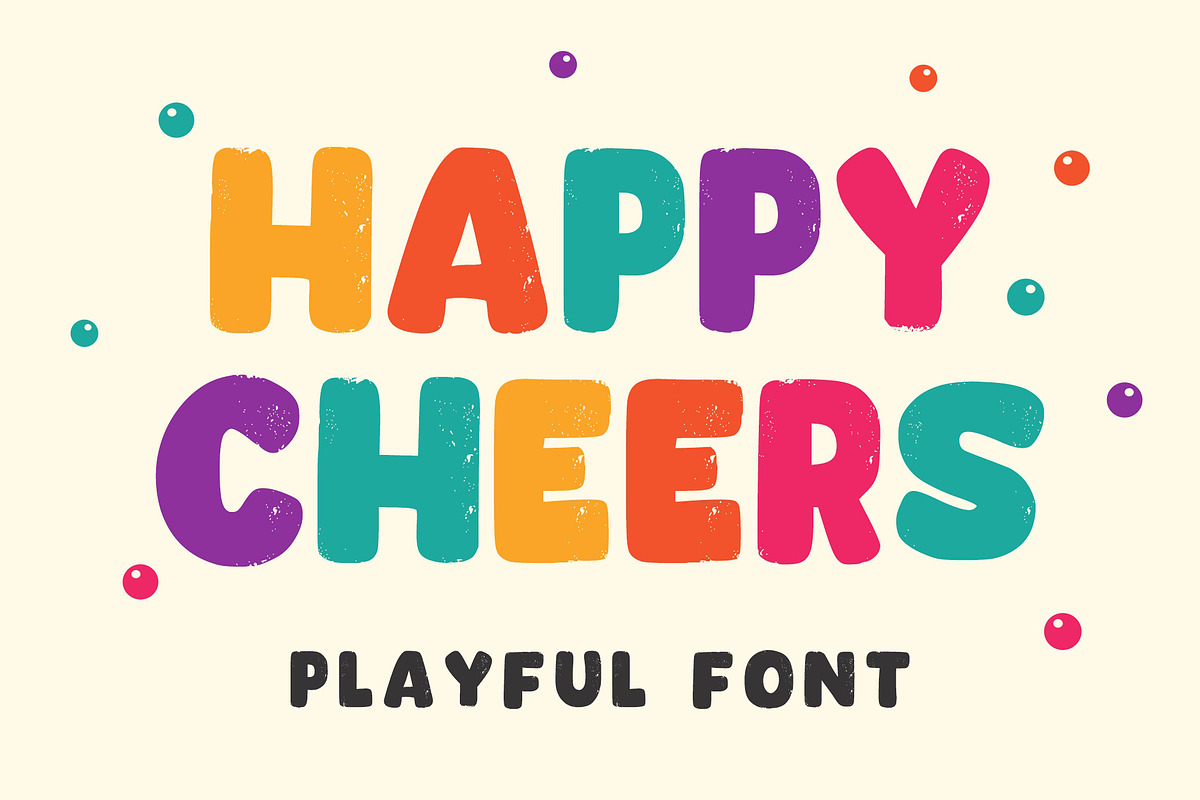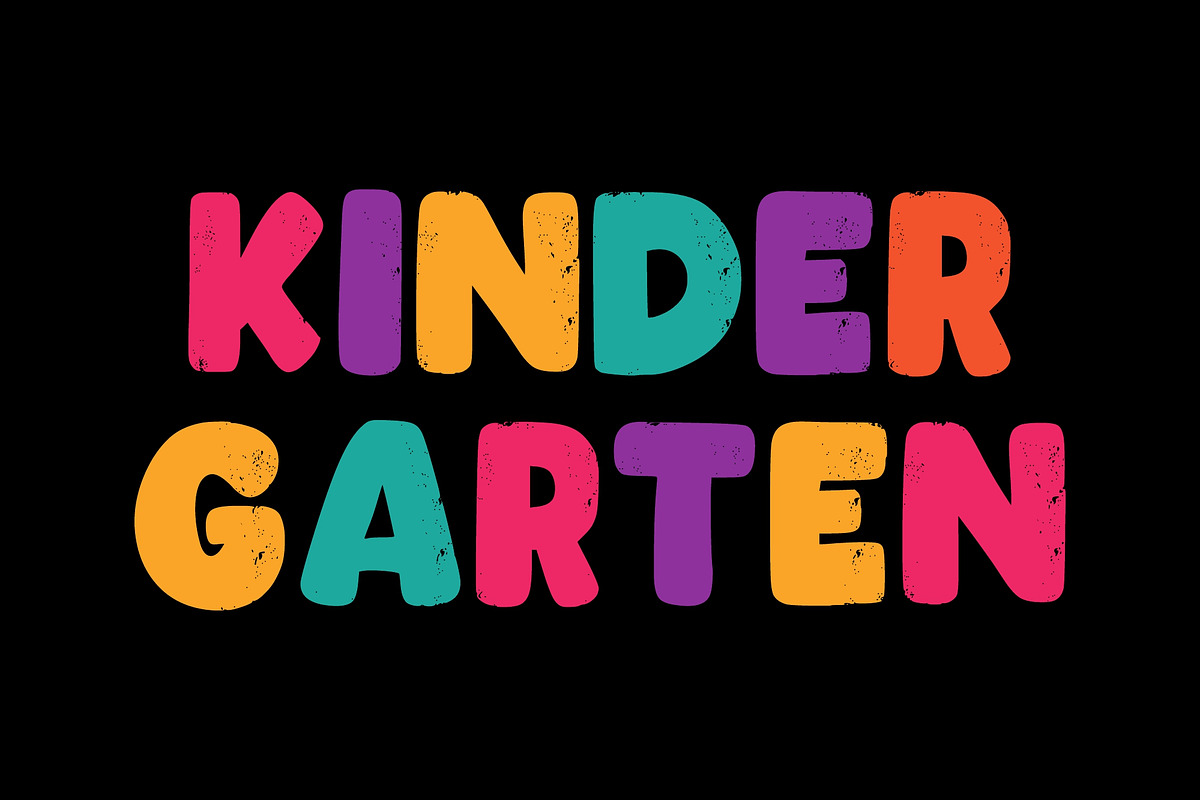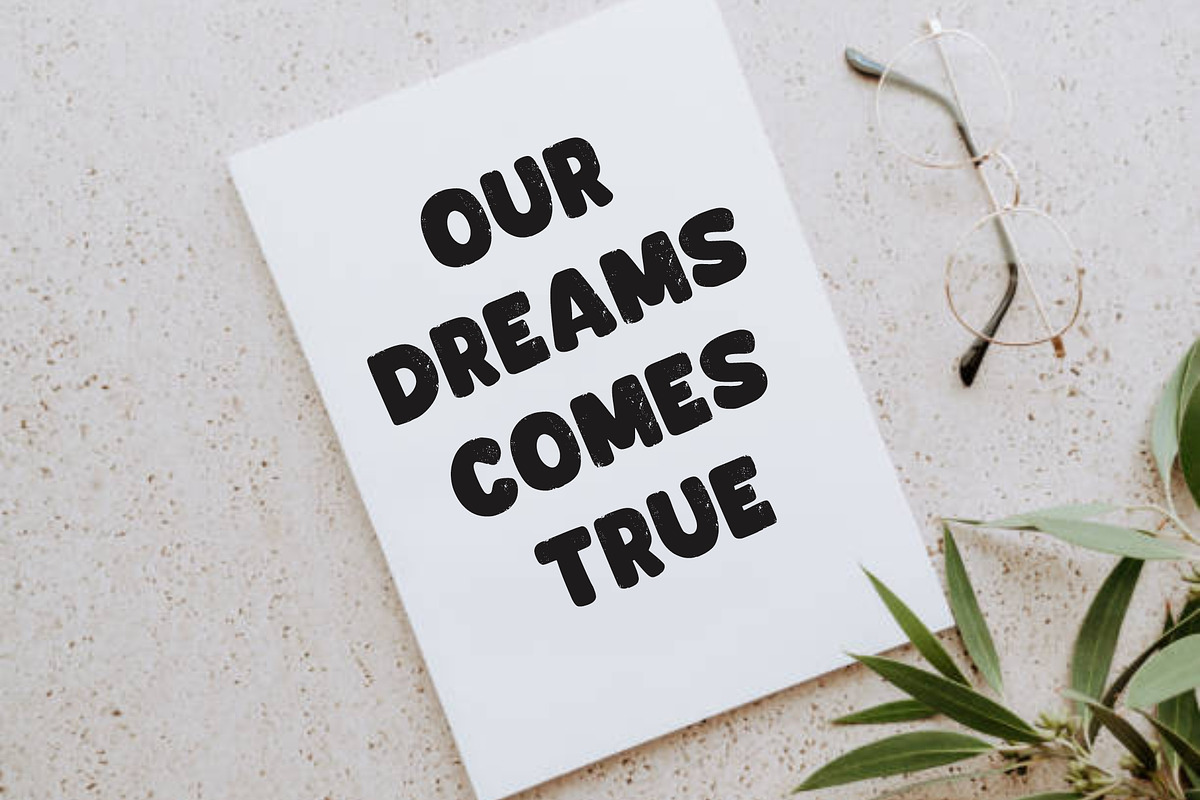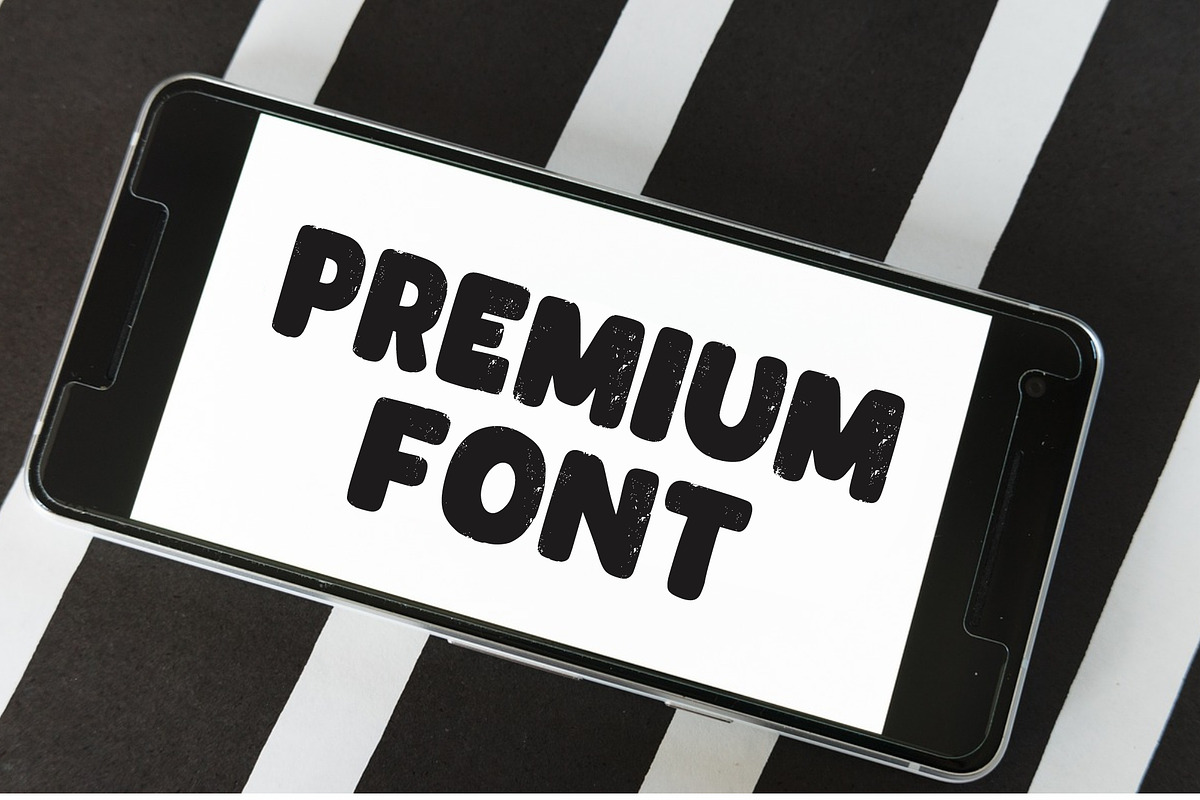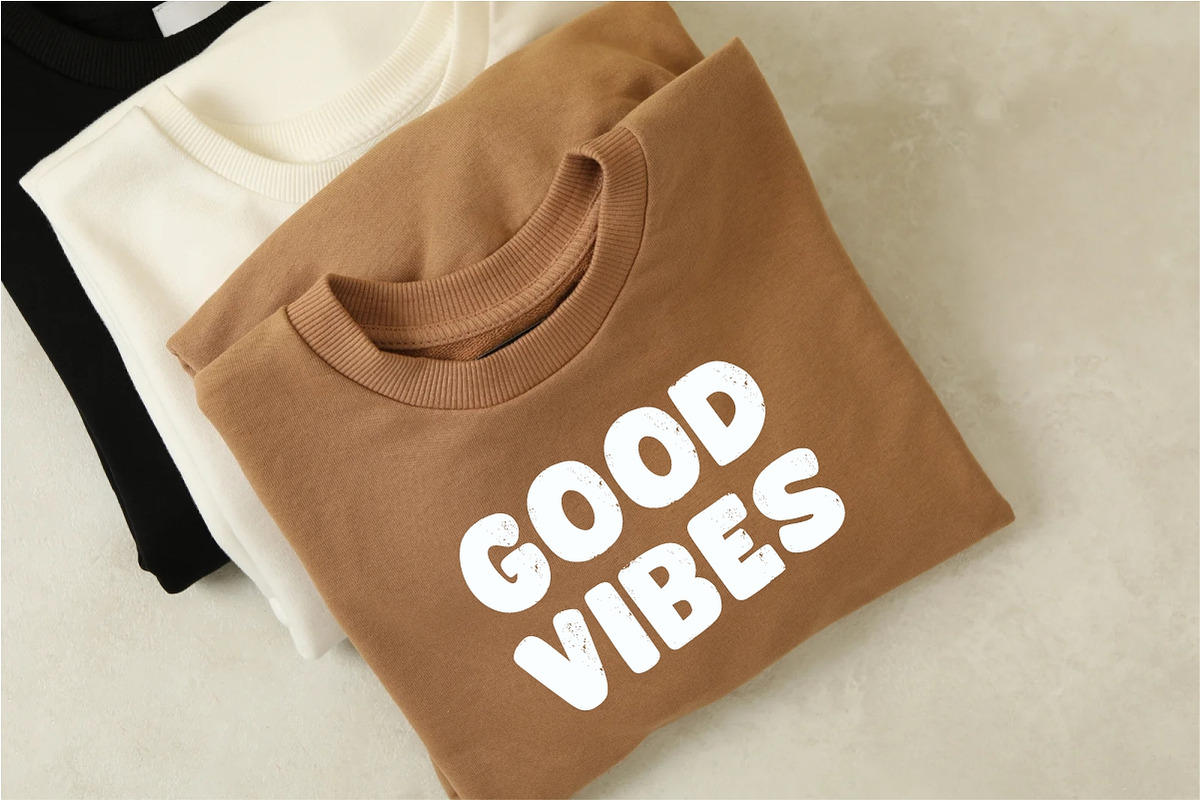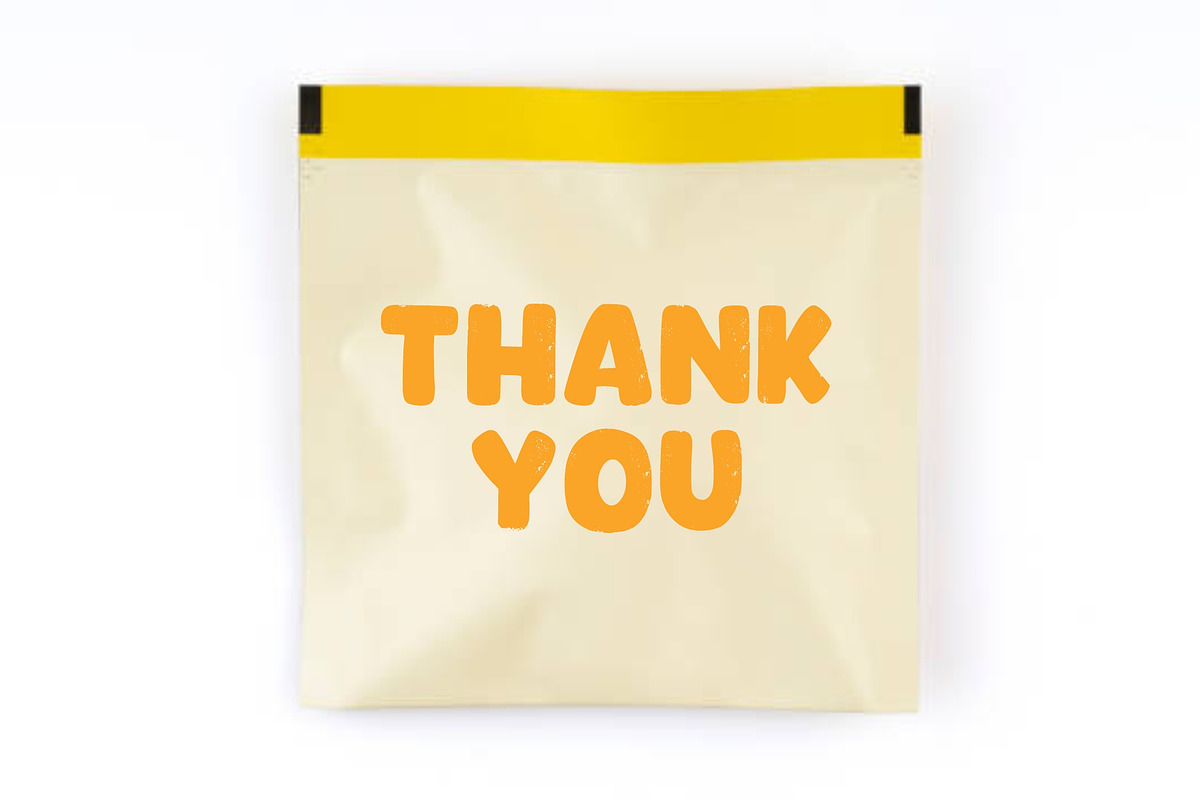
Happy Cheers
The Happy Cheers font is your go-to choice if you’re after a playful, childlike vibe! This Happy Cheers typeface is perfect for adding a burst of fun to your designs — whether you’re making t-shirts, tote bags, hats, stickers, wedding invitations, logos, cards, quotes, or anything else.